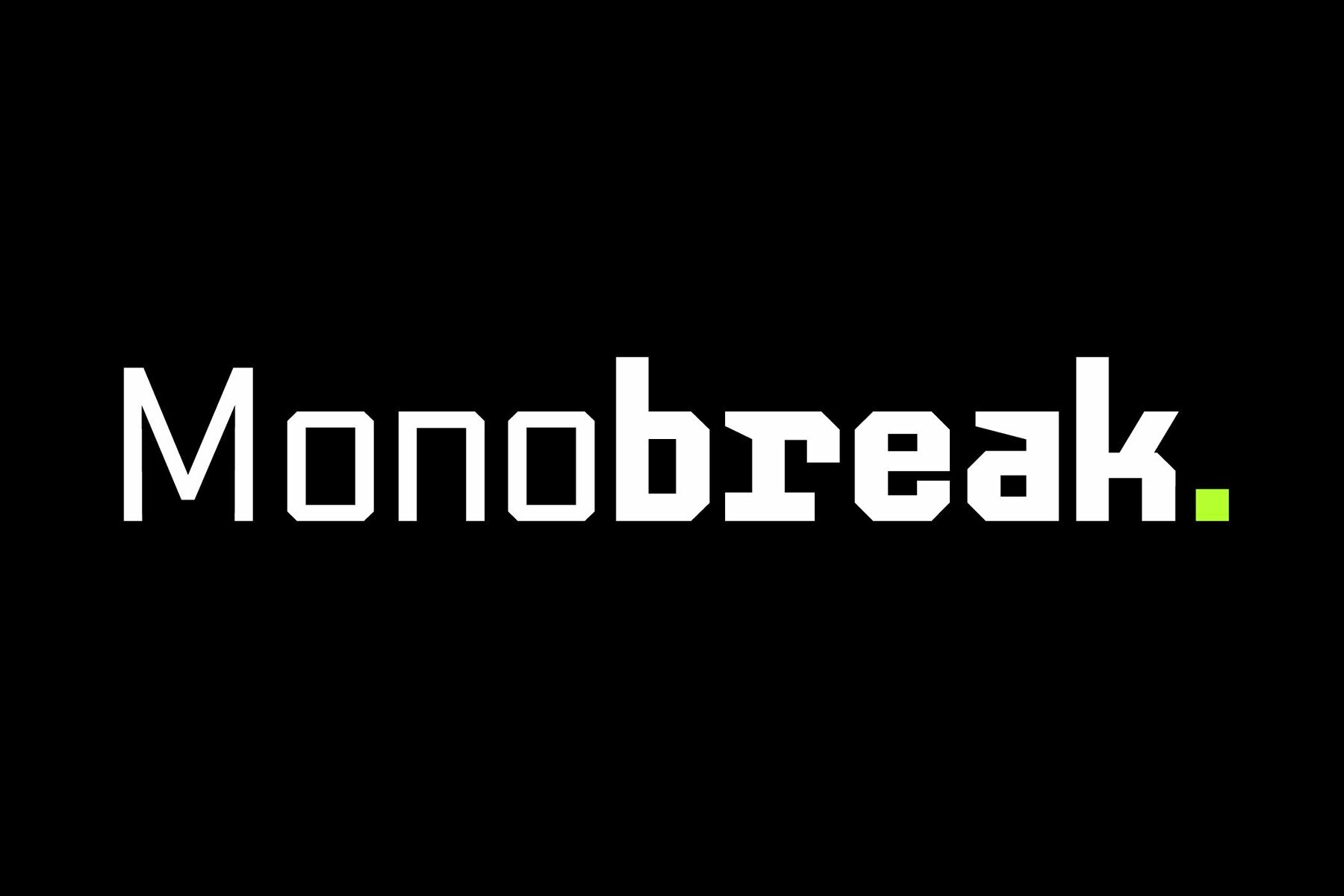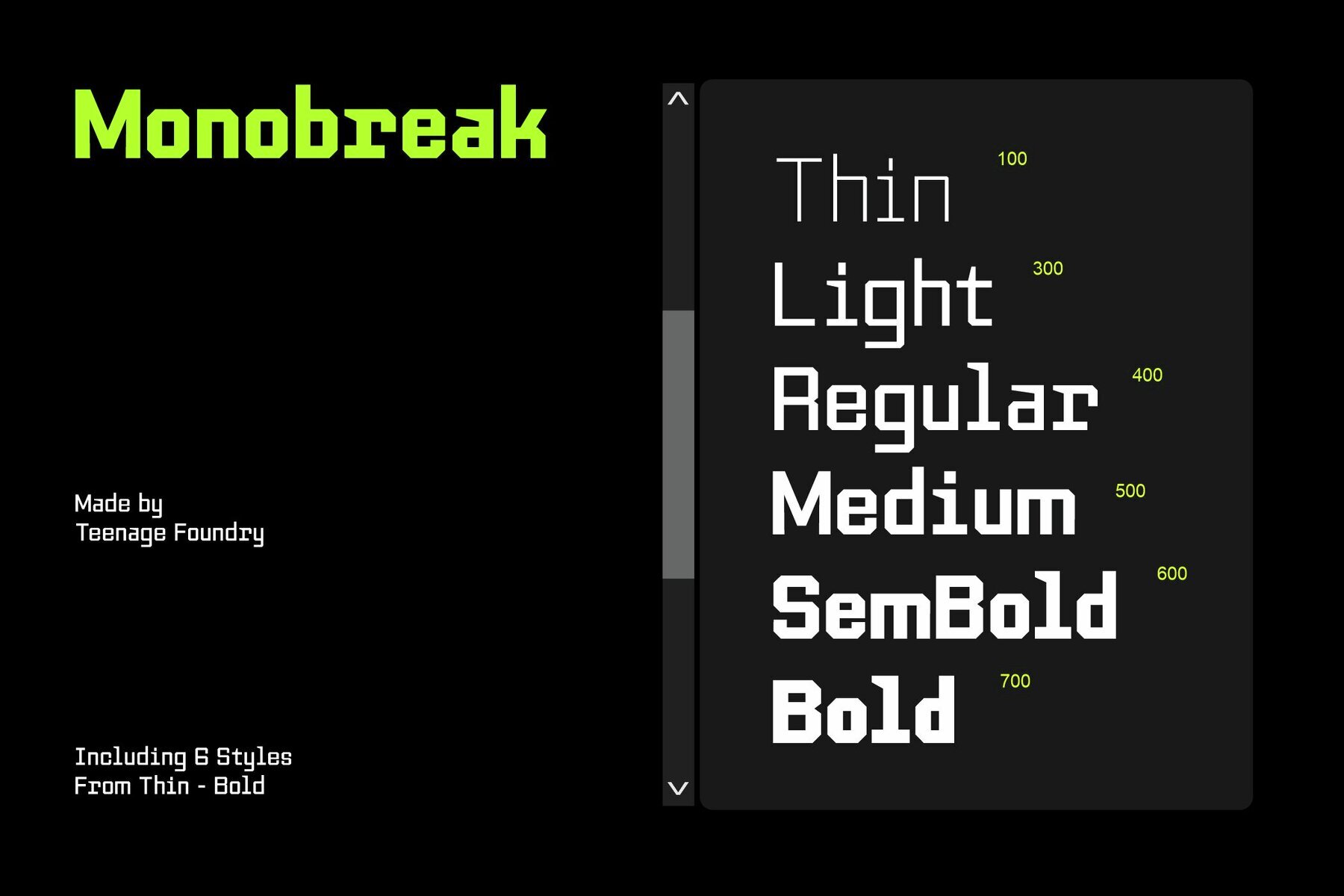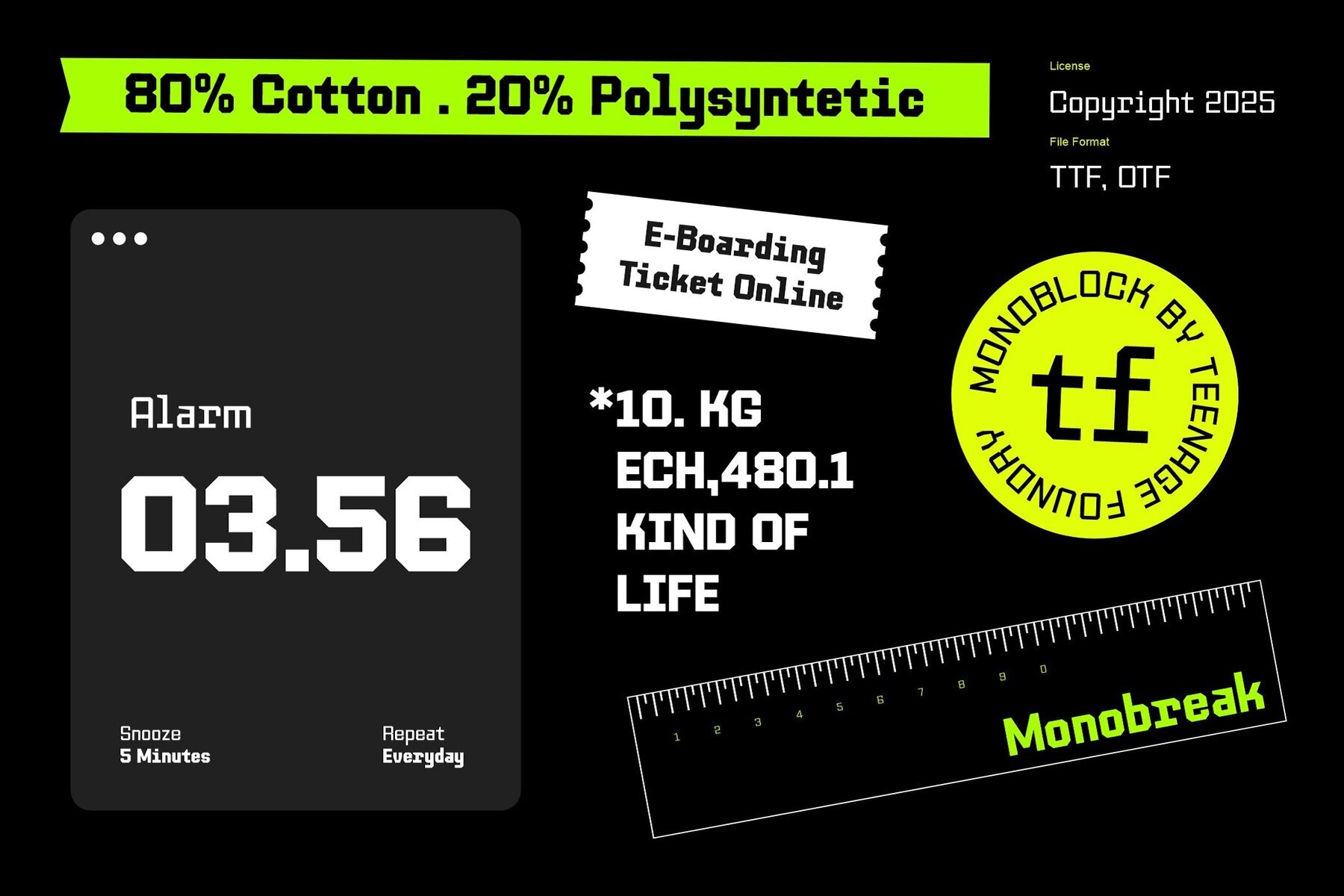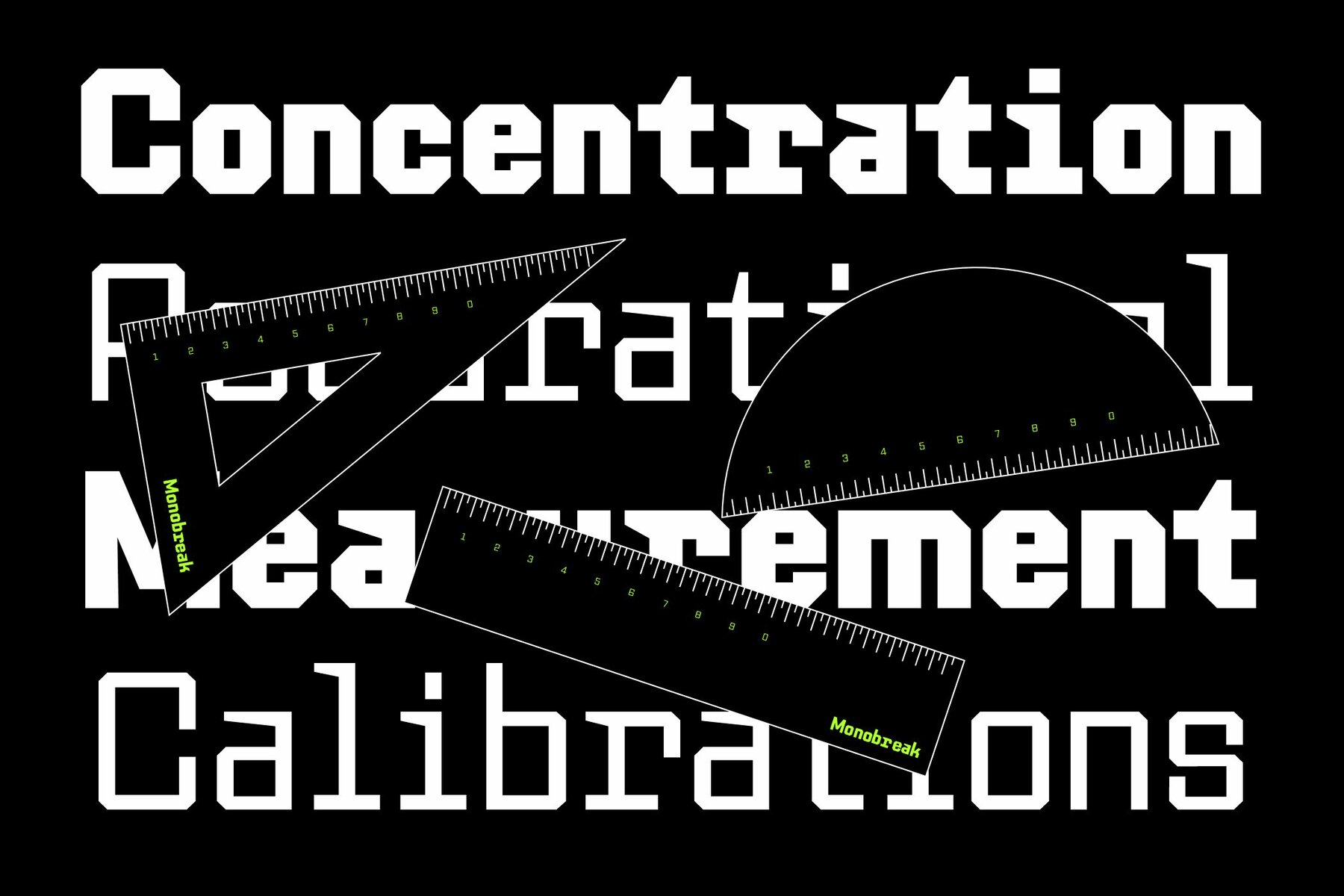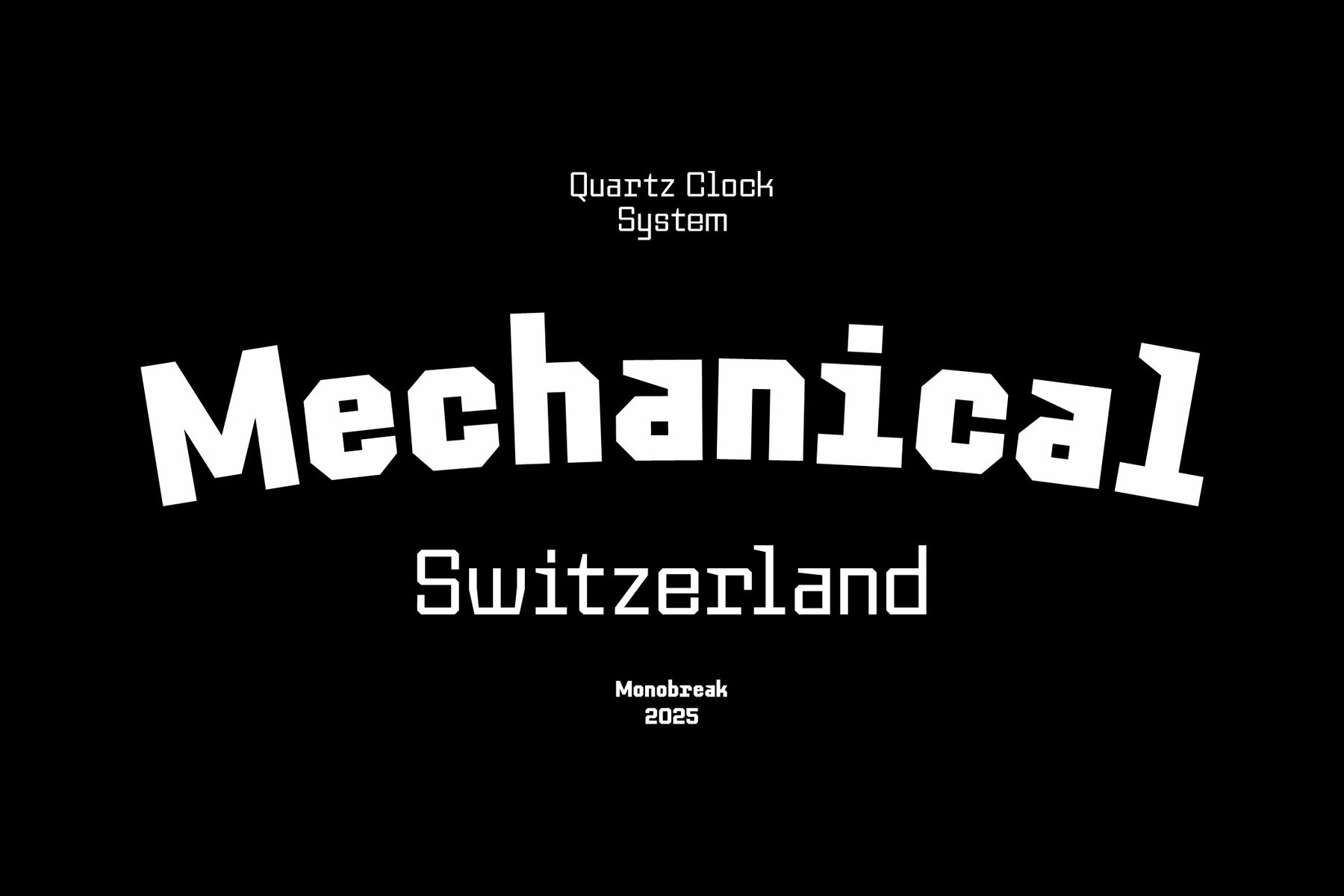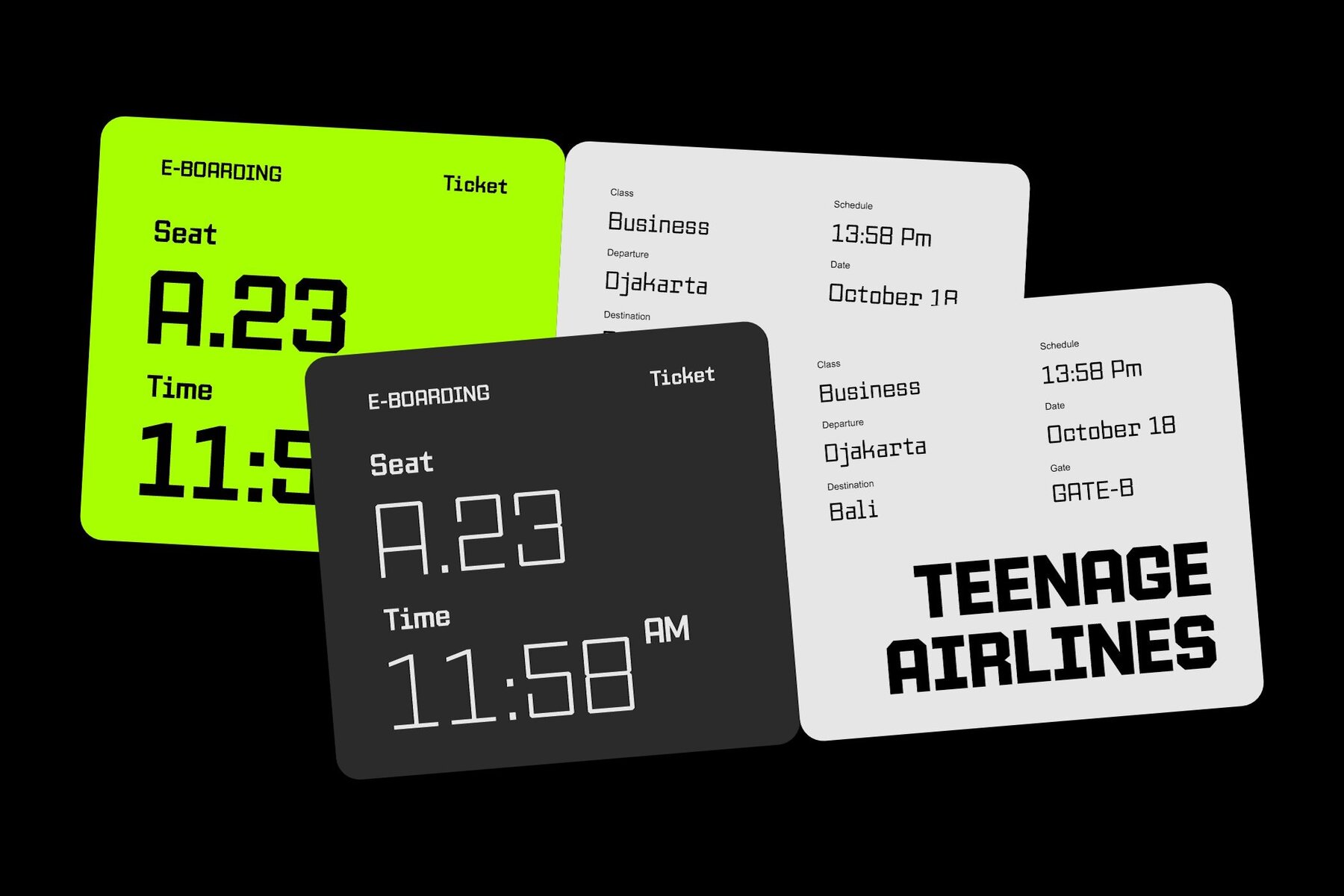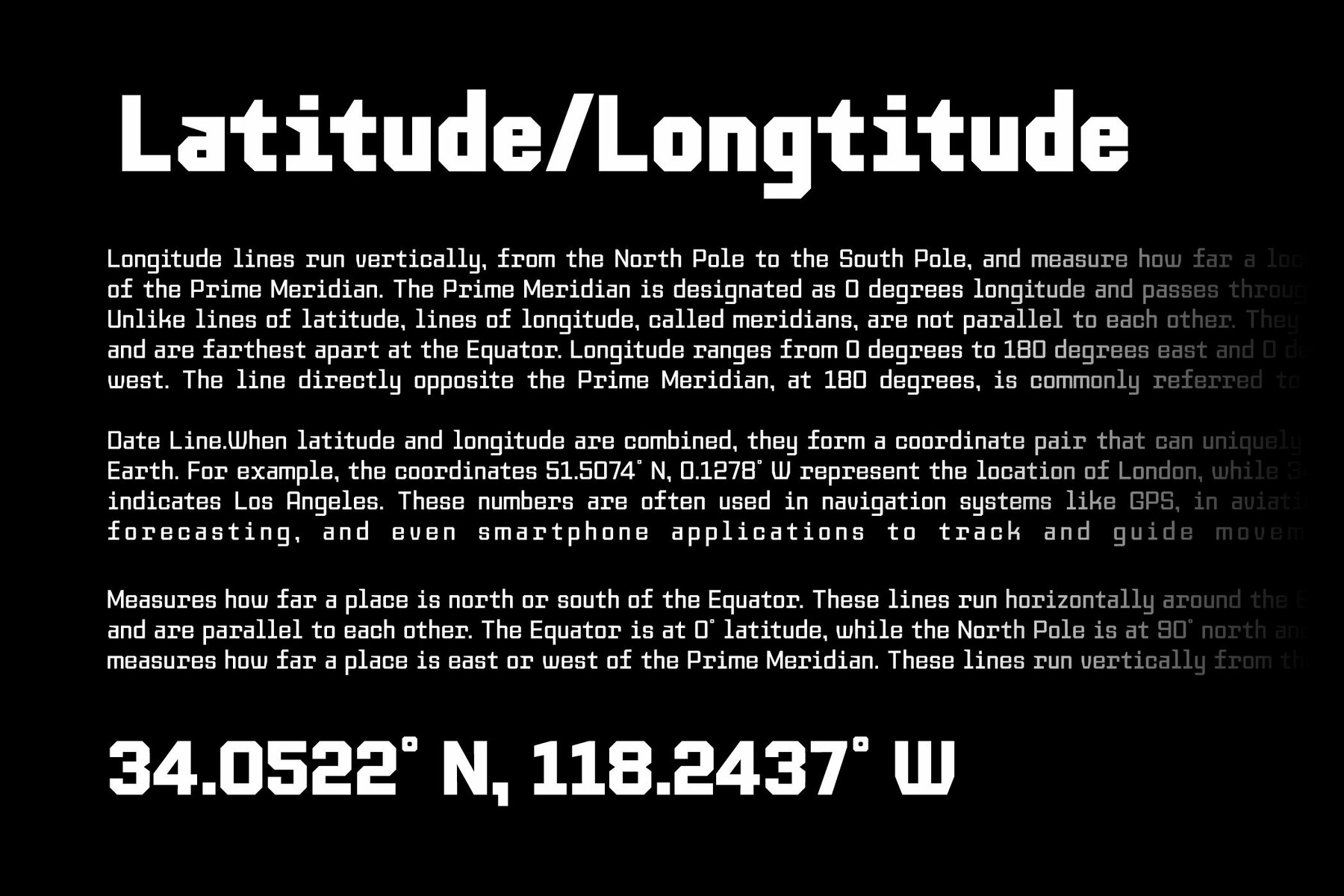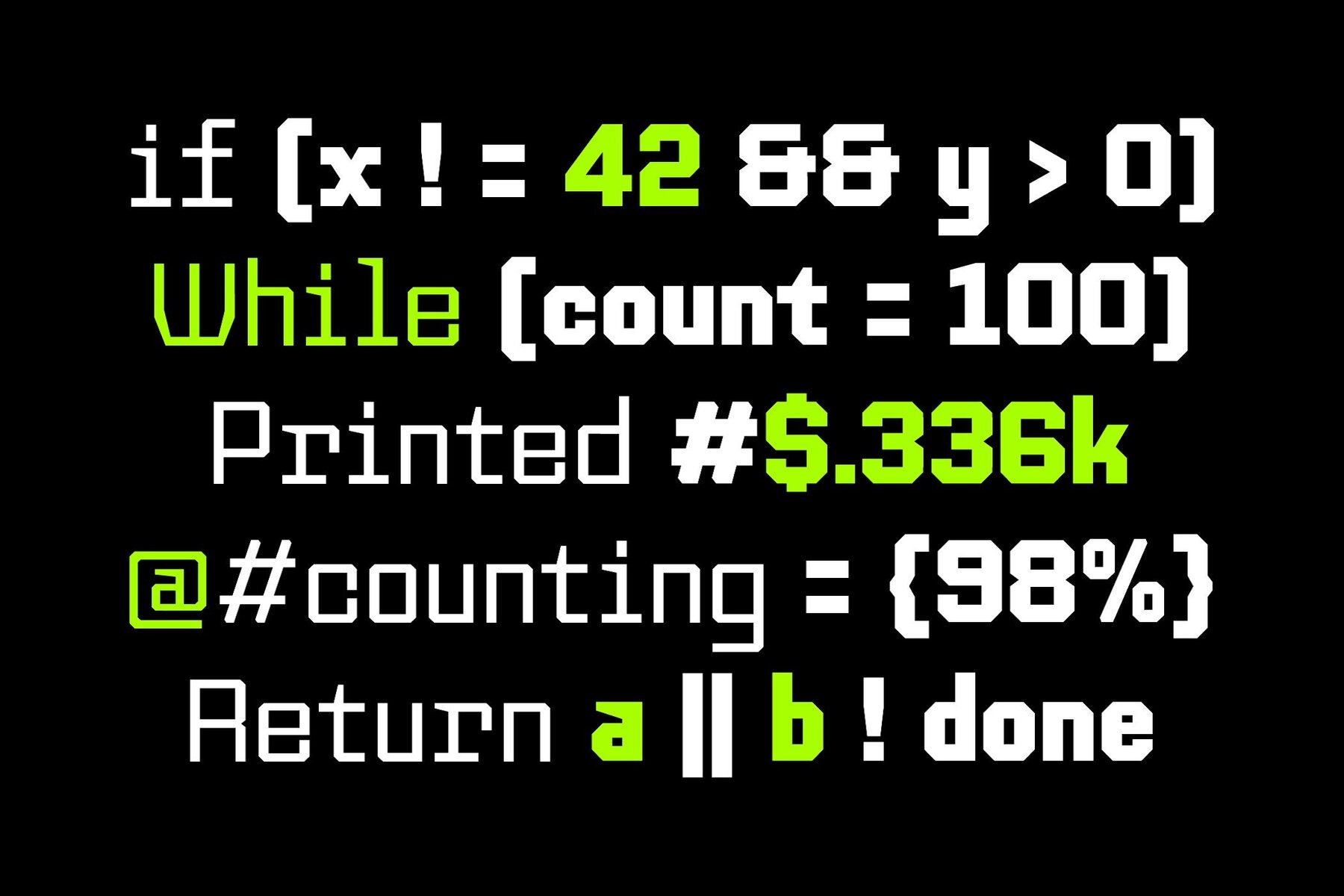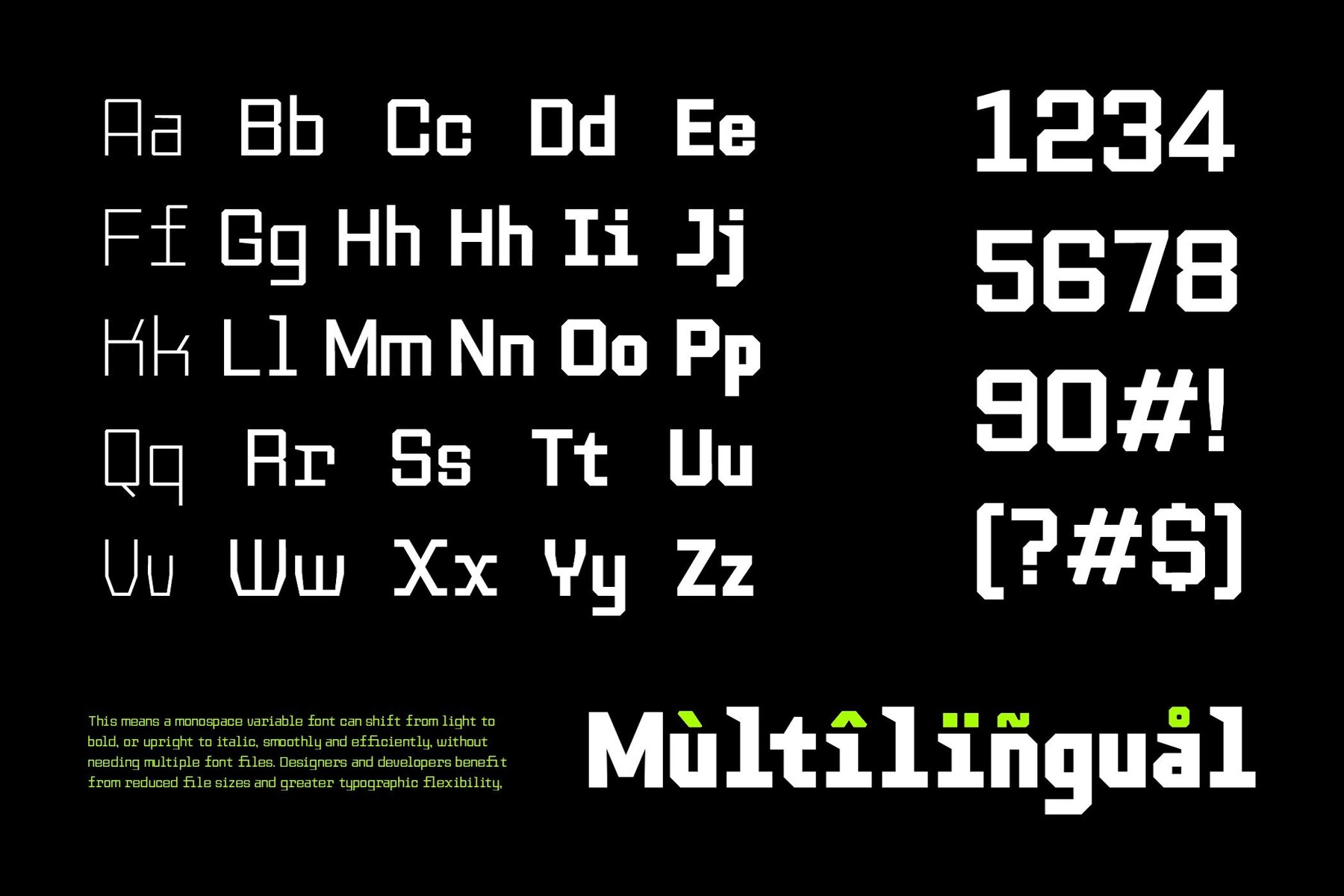
Monobreak Font
Monobreak emerges as a modern geometric monospace font, characterized by clean precision and balanced design. Each character seamlessly melds technical structure with contemporary flair, making it an excellent choice for projects requiring a bold and futuristic aesthetic. Offering a palette of five distinct weights from Thin to Bold, Monobreak excels in versatility, seamlessly transitioning across digital interfaces, branding projects, and minimal editorial layouts. Its consistent rhythm and streamlined construction bestow stability and clarity, embodying technical elegance throughout text compositions.Monobreak: Sleek Geometric Monospace Font